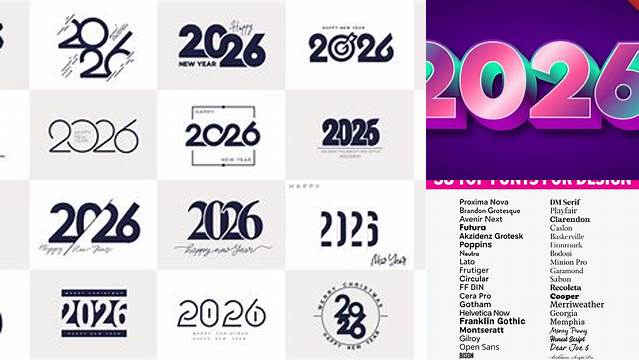
Top Free Fonts To Rock Your Designs In 2026
Alright design enthusiasts, buckle up! We're diving headfirst into the exciting world of typography and looking ahead to the best free fonts of 2026. Choosing the right font is like picking the perfect outfit – it sets the tone, makes a statement, and can completely transform your whole vibe. Whether you're a seasoned graphic designer, a budding blogger, or just someone who loves to tinker with creative projects, understanding the landscape of free fonts is an absolute must. This isn't just about finding fonts; it's about finding the perfect font to express your brand or your creativity. It's about communication, style, and legibility. Forget the boring old days, guys, because 2026 is promising to be a killer year for typography. We're talking fresh styles, innovative designs, and a whole bunch of options that won't cost you a penny. So, let's get this party started and explore what the future holds for free font fanatics like us. This article is packed with insights, recommendations, and tips to help you navigate the font jungle and choose the right typeface for your needs. Get ready to give your projects that extra edge and make your designs pop.
1. The Rise of Variable Fonts: Font Evolution in 2026
Get ready for variable fonts, because they will be everywhere in 2026. Variable fonts are the superheroes of the font world, allowing you to adjust weight, width, and other properties within a single font file. This means you get endless design possibilities without having to manage tons of different font files. Imagine being able to smoothly transition from a thin, elegant typeface to a bold, eye-catching headline font – all with one click! This level of flexibility is changing the game for web design, branding, and even print materials. In 2026, we'll see variable fonts become even more refined, with designers pushing the boundaries of what's possible. Expect to find free variable fonts offering a wide array of customizable options, empowering you to create unique and dynamic designs. The benefits are huge. File sizes shrink, website loading times improve, and designers gain unparalleled control over their typography. So, as you look for the best free fonts 2026, keep an eye out for variable font support. You'll be amazed at what they can do. Variable fonts also offer accessibility advantages by allowing users to customize the font to their preferences. This can greatly improve readability for those with visual impairments. With the ongoing push for web accessibility, variable fonts are becoming an increasingly important consideration for web developers. Moreover, the design community is responding to the demand for web design, offering more variable fonts with each passing year.
2. Exploring Modern Sans-Serif Free Fonts for 2026
Modern sans-serif fonts are the kings and queens of the design world. They're clean, versatile, and incredibly readable – perfect for everything from website copy to branding materials. In 2026, the trend will continue. We'll see more sophisticated and refined sans-serif fonts that are perfect for all kinds of projects. Think about fonts that strike the ideal balance between simplicity and personality. These fonts will be perfect for capturing attention without being too intrusive. These fonts will be the workhorses of your design arsenal. When you look for the best free fonts 2026, focus on options that offer a wide range of weights and styles. This will give you the flexibility to use the font in different contexts, whether you're designing a logo, creating website content, or crafting marketing materials. Consider the font's overall feel: Is it friendly and approachable, or sleek and professional? The right sans-serif can make a huge difference in how your design is perceived. Another important thing to keep in mind is the font's x-height, which affects readability. A larger x-height generally makes a font easier to read, especially in small sizes. Look for sans-serif fonts with excellent legibility, particularly for long-form text. Modern sans-serif fonts also excel in responsive design. Their simple letterforms often render well on various screen sizes, making them perfect for the ever-increasing number of mobile users. When searching, consider which sans-serif font options are available. Does it support multiple languages? Do they offer OpenType features like ligatures and alternative glyphs? The more options you have, the more creatively flexible your work can be.
3. The Revival of Serif Fonts: Classic Styles in the Modern Era
Serif fonts are making a huge comeback, but with a modern twist! These fonts bring a touch of elegance and sophistication to your designs, reminiscent of traditional typography. If you're looking for the best free fonts 2026, don't overlook the serif fonts that are getting a makeover. These fonts add a touch of authority and readability, so expect a renewed interest in classic styles. Today's serif fonts are often reimagined with clean lines and a contemporary aesthetic, making them perfect for both print and digital projects. They're no longer just for stuffy books and formal invitations. Expect designers to create serif fonts with unexpected details and unique character sets to make your design stand out. When you search for free serif fonts, keep an eye out for variations, different weights, and styles. This ensures you'll be able to use the font in a variety of ways. Consider how the font performs in different contexts. Is it ideal for headers, body text, or both? Does it complement the images and other elements in your design? Modern serif fonts can bring an air of sophistication to branding, websites, and editorial designs. They convey authority and trust, which can be invaluable for businesses. Moreover, the use of serif fonts creates a sense of history and timelessness, which can resonate with audiences. The versatility of serif fonts has made them a favorite choice for many designers. They offer a great balance of legibility and style. They are also ideal for creating a sense of luxury and premium appeal. You will often find these fonts used for prestigious brands and publications.
4. Handwritten and Script Fonts: Adding a Personal Touch
Nothing says 'unique' quite like a handwritten or script font. They bring a human, personal touch to your designs. These fonts add warmth and personality to your projects. If you're on the hunt for the best free fonts 2026, get ready to add some personality to your design arsenal. Script fonts are perfect for logos, invitations, and any design where you want to express creativity and individuality. In 2026, we'll see a rise in free handwritten and script fonts that are more realistic and stylish than ever. The most popular script fonts will offer variations. These variations allow you to create unique designs. Consider whether the font is easy to read, especially at smaller sizes. It's crucial that your audience can understand the message. When selecting handwritten fonts, try to assess their personality. Does it feel friendly, playful, or elegant? The font should enhance your brand's voice. Another important factor is character set support. Does the font include all the characters and symbols you need? The font should also have a good selection of ligatures. Ligatures are where two or more letters are combined into a single character. These add a touch of elegance to your designs. Overall, the handwritten and script font options can be used for a variety of creative projects. These fonts are great for adding a personal touch. This will help you convey your brand's creativity and authenticity. Remember to use script fonts sparingly. They work best in small doses. Too much can be overwhelming.
5. Display Fonts: Making a Bold Statement
Display fonts are all about grabbing attention. They are perfect for headlines, posters, and any design that needs to make a statement. If you're searching for the best free fonts 2026, you'll find that display fonts are essential tools. They're bigger, bolder, and designed to be seen! These fonts tend to be more experimental and unique than standard fonts. They bring a sense of creativity and personality to your designs. You can expect to see display fonts with innovative shapes, unusual letterforms, and eye-catching details. Many display fonts are free, which is great if you want to add flair to your designs. You might find display fonts that have playful, whimsical vibes. Others can have a strong, modern feel. When you search, consider the font's versatility. Can it be used for multiple purposes? Does it complement your overall design? Display fonts can be a great way to add flair. They are often used in advertising, branding, and social media. You may find fonts that have different weights, styles, and versions. These variations provide versatility. The right display font can make your design stand out. Keep in mind that display fonts are mainly used for headlines. They're not always suitable for body text. Display fonts work well for creating a visual identity. If you're looking to create something memorable, then use display fonts.
6. Finding Fonts with OpenType Features for Enhanced Design
OpenType features take your typography to the next level. They give you control over ligatures, stylistic sets, and other advanced options. This allows you to fine-tune your designs. If you are looking for the best free fonts 2026, look for fonts that offer OpenType features. These are designed to elevate your typography. With OpenType features, you can make your designs even more sophisticated. Ligatures, for example, combine two or more letters into a single character for a smoother look. Stylistic sets provide alternate versions of letters and numbers, allowing you to customize the font to your liking. When you explore OpenType fonts, look for fonts that offer a range of features. These features help to boost your design. These might include fractions, small caps, and old-style figures. OpenType features give you a lot of creative flexibility. They help you create unique designs. When you search for fonts, consider the specific features that matter to you. Do you need a font with specific ligatures? Does it have the features you need? OpenType fonts are essential for creating beautiful and sophisticated designs. They give you an amazing amount of control. When using OpenType fonts, be sure to experiment with the features. This will give you a deeper understanding of the font's capabilities. These are useful for adding a touch of personality to your designs.
7. Where to Find High-Quality Free Fonts Online in 2026
Finding great free fonts has never been easier, but you still need to know where to look. The key is to find reliable sources. If you're in search of the best free fonts 2026, then knowing where to look is the first step. There are several online platforms that provide a wide selection of fonts. Websites such as Google Fonts, Font Squirrel, and DaFont are great places to start. These are reliable and safe. Google Fonts is a favorite among designers because of its huge library and easy-to-use interface. They also provide good typography with accessibility and web performance. Font Squirrel is a great platform. It provides curated collections of high-quality fonts. They also have a unique license that allows you to use them commercially. DaFont has a huge library with tons of options. Always check the licensing for each font to make sure you can use it as intended. When exploring the fonts, make sure to test the font before downloading. You can preview the font. You can also check out its various characters. There are also premium fonts to consider. Some premium fonts have free versions. They are a good way to get a taste of the style. These fonts can be found on various websites. Be sure to read the licensing terms for all the fonts. Keep an eye out for fonts that include multiple weights and styles. The goal is to pick the right font. This will help you elevate your designs.
8. Understanding Font Licensing: What to Watch Out For
Font licensing can be tricky, but it's super important to understand. It tells you how you can use a font. If you're looking for the best free fonts 2026, you need to understand licensing. This will help you avoid any legal problems. There are different types of font licenses. Some are free for personal use. Others allow commercial use. This means you can use them for your business. Always check the license before you download or use a font. This will help you avoid any problems. Pay close attention to restrictions. There might be limits on how you can use the font. You may not be allowed to embed it in software. You might not be allowed to redistribute the font. The license terms will explain all of this. Be aware of open-source licenses. These are usually very flexible. The font can be used in many different ways. However, there might be some restrictions. These restrictions should be written in the terms. If you are unsure about the license, then do some research. Read through the terms. If you are still unsure, ask a legal expert. Following licensing guidelines ensures that you respect the font designer's work. It can help you avoid any potential legal issues. This also supports the community. Always respect the hard work and creativity that goes into each font.
9. Matching Fonts: Font Pairings for Stunning Designs
Pairing fonts is a great art. It's all about creating a harmonious balance. If you're looking for the best free fonts 2026, learn about the art of font pairing. This will help you elevate your designs. There are certain fonts that work well together. Try to pair fonts that complement each other. Consider the personalities of the fonts. Do they match your brand? Think about readability, contrast, and visual balance. A good font pairing will enhance your message. It's the key to a good design. To begin, select one font for the headings and another for the body text. Try using a bold font for the headings. Pair it with a clean, readable font for the body. This is a great way to provide contrast. When pairing, think about contrast. A high contrast can make a design more visually appealing. A low contrast can create a subtle and elegant look. Keep in mind the visual weight of the fonts. Some fonts are heavier. Others are lighter. Pair a heavier font with a lighter font. This will bring balance. If you're not sure where to start, use font pairing guides. They will help you. You can find them on many websites. These guides will provide you with ideas. Keep these guidelines in mind to create beautiful, balanced designs.
10. Font Trends to Watch in 2026: What's Hot in Typography
Typography trends are always changing. The landscape of the design world is forever evolving. If you're looking for the best free fonts 2026, it's important to know what's trending. This can help you stay ahead of the curve. In 2026, we'll see new trends. One trend is the continued popularity of variable fonts. These fonts provide creative flexibility. This allows for a great amount of design options. Expect to see more expressive and experimental fonts. They will be perfect for making a statement. Another trend is a focus on accessibility. Designers are creating fonts that are easy to read. This will help users of all abilities. Look for fonts with excellent legibility. Some fonts are focused on sustainability. These fonts are designed to reduce ink usage. This aligns with eco-friendly values. In 2026, we'll see fonts that are inspired by technology and futuristic designs. These fonts will be perfect for futuristic and digital projects. Also, expect to see a revival of classic typefaces. These fonts will bring a touch of nostalgia. The trends that will dominate are the ones that blend functionality with aesthetic appeal. Make sure you are staying informed. Experiment with different styles. Adapt to new trends. This will help you create modern designs.
11. Font Legibility: Ensuring Your Designs are Easy to Read
Legibility is the most important thing in typography. You must make sure that your audience can easily read your content. If you are looking for the best free fonts 2026, then you must consider legibility. The design is useless if your audience cannot read your content. The best designs prioritize readability. Choose fonts that are clear and easy to understand. Think about the context of your design. Make sure your design fits the target audience. For body text, choose fonts that have a simple, clean design. Avoid overly elaborate or decorative fonts. Make sure the font has enough space between the letters and words. This makes the text easier to read. The font's x-height should be large. This improves readability, especially in smaller sizes. Make sure you use the correct font size for the design. The size should be proportional to the text. Avoid using too much text in one place. This can make the text hard to digest. Contrast is key. The text should contrast with the background. Avoid using colors that make it difficult to read. Test your designs. Make sure the content is easy to read on different devices. Make sure the design works well on both mobile and desktop. Legibility is important for any project. You can create a design that's visually appealing. Prioritize readability to ensure your message is effective.
12. Font Weight and Styles: Mastering the Art of Emphasis
Font weight and styles are essential tools for emphasis and visual hierarchy. They help you guide the reader's eye. If you're on the hunt for the best free fonts 2026, you must master these skills. Understanding font weight is vital. This includes the thickness of the characters. Font weights range from thin to bold. They help you create emphasis. Use bold weights for headlines and important information. Use lighter weights for the body text. This will create a great contrast. Also, you can use font styles. This includes italic and underline. These styles can change the overall look. Italics create emphasis, while underlines can be used for links. However, use these styles with care. Too much emphasis can distract the reader. There are many different styles. Bold and italic are the most common styles. You can also find small caps and other variations. When you experiment with weights and styles, keep your design in mind. You want to create a clear visual hierarchy. You want to guide the reader's eye. Use different weights and styles to emphasize different elements. Try to establish a visual balance. Also, use the correct contrast. This will make your design more effective. A good combination of weights and styles will create dynamic designs. The combination is key to creating a beautiful and readable design.
13. Font Size and Spacing: Optimizing Readability in 2026
Font size and spacing are crucial for creating readable and visually appealing designs. They affect the overall appearance. If you're in the market for the best free fonts 2026, you must understand font size and spacing. Choosing the right font size is important. The size should be appropriate for the content. Headings should be bigger than the body text. Body text should be a comfortable size for reading. Keep the screen size in mind. The font size must be legible on different devices. Spacing also has a big impact on readability. Spacing includes letter spacing, word spacing, and line height. Letter spacing is about the space between individual letters. Adjust it to ensure that the words are easy to read. Word spacing is about the space between words. Too much space makes the text seem disjointed. Too little space can make it hard to read. Line height is the space between lines of text. Enough space will improve readability. Always consider the design. The spacing should be appropriate for the font. Try different options and choose what looks best. It's important to test your design. Make sure the font size and spacing are correct on different devices. Always prioritize readability. These are key to creating good design. Your content should be accessible and enjoyable to your audience.
14. Font Design for Web and Print: Adapting to Different Mediums
Fonts behave differently depending on whether you're designing for web or print. It's important to optimize your designs. If you're looking for the best free fonts 2026, remember that different mediums require different approaches. In print, you have more control over the physical appearance. In web design, the experience can vary. When selecting fonts for print, consider the paper and printing method. Serif fonts are typically a good choice for print. They can be more readable. Also, consider the resolution and size of the print material. For websites, you must ensure that your font looks good on all devices. Choose fonts that are web-friendly and optimized for various screens. Web fonts need to load quickly. This impacts the user experience. Ensure the font supports all the necessary characters. Also, consider the accessibility standards. Different fonts and font sizes can be used. Prioritize readability on both mediums. For print, the font should be clear and crisp. In web design, the font should be readable and functional. Always test your designs. The key is to adapt your font design. This will help you create effective communication.
15. The Psychology of Fonts: How Fonts Influence Perception
Fonts have a major impact on how people perceive your design. They can influence emotions. If you are looking for the best free fonts 2026, you will want to learn about font psychology. This knowledge will help you make better choices. Fonts evoke emotions. Serif fonts, such as Times New Roman, convey a sense of tradition and authority. Sans-serif fonts, such as Arial, feel modern and approachable. Script fonts, such as Brush Script, can feel creative and personal. Different fonts can convey different moods. The font choice should match your brand's personality. A playful font might be ideal for a children's brand. A sophisticated font might be suitable for a luxury brand. Consider your target audience. Choose fonts that resonate with them. Consider the tone of your design. You can create a feeling of urgency. You can create a feeling of calm. Font psychology can improve your design. It's a critical part of communication. By using the font strategically, you can influence the perception. When you design your fonts, consider this information. This will help you engage your audience.
16. Best Free Font Combinations for Websites in 2026
Finding the right fonts is a must-do. When combined, you can create a visually appealing website. If you are looking for the best free fonts 2026, it is time to learn the best font combinations. You can use a range of fonts. Combining fonts, you can create a website that is both readable and attractive. Pair a strong font with a readable font. Consider the contrast. Make sure the fonts complement each other. Popular combinations include pairings of different fonts. Use a serif for headings and a sans-serif for the body. You can also use different fonts. The fonts must complement each other. Test the combinations. Make sure it works well. Remember to consider your brand. Try a font that fits your brand's personality. Always prioritize readability. You must ensure that the content is readable on all devices. You can use a variety of resources. You can also find font pairing tools to help you. You can experiment and test. Remember, good font combinations will enhance the overall design. You must use the right fonts. This ensures that the website is functional and appealing.
17. Utilizing Font Variations: Exploring Different Styles and Weights
Fonts don't just come in one style. There are many font styles and weights. You can also find multiple variations. If you're looking for the best free fonts 2026, learn about font variations. Font variations provide many options. These can improve your designs. Font weights refer to the thickness of the font. You can find the right weight. Weights range from thin to bold. Styles include variations like italics, bold, and condensed. Explore different styles. This allows you to create emphasis. These fonts are available in different styles. Use variations to create a visual hierarchy. You can highlight different parts of the content. Test your designs on different platforms. You want to make sure the fonts are readable. The use of font variations is a powerful tool. When used strategically, you can create a visually engaging design. This helps you communicate your message. Experiment with different styles and weights. These can add depth and personality to your designs.
18. Font Selection for Branding: Creating a Unique Visual Identity
Choosing the right fonts is very important for branding. Fonts are a critical part of the brand identity. If you're looking for the best free fonts 2026, you should learn about font selection for branding. Fonts must reflect your brand's values. They can also communicate your message. Start by identifying your brand's personality. Is your brand playful, serious, or creative? Choose fonts that align with your brand's personality. Your font should be consistent. When you create a brand identity, your font should be used across all materials. The selection should be versatile. Choose fonts that are legible. Make sure they work well in different contexts. Check the licensing. Make sure you can use the fonts for commercial purposes. Research the font. See what type of message it sends. A good font selection will communicate your brand. It also reinforces brand recognition. It helps to build trust with your audience. You can create an unforgettable brand identity. These fonts can create a strong visual identity.
19. Free Fonts for Graphic Design: Elevating Your Creative Projects
Graphic design projects require great fonts. These fonts can take your projects to the next level. If you're looking for the best free fonts 2026, you will want to look at free fonts. You can use these fonts to elevate your creative projects. Find fonts that are versatile. They will give you multiple uses. Different styles and weights can provide creative options. Experiment with different combinations. This allows you to see what fits your project. Make sure your fonts align with the project. Consider the message you want to send. Check the licensing terms. You want to make sure that you can use the font. Free fonts can enhance your designs. These fonts can be found on a variety of websites. They can add personality and professionalism. You must ensure that the fonts are high-quality. You can also add visual interest. When you select your font, think about the visual impact. It's important to select a font that makes your design appealing.
20. The Importance of Kerning and Tracking in Typography
Kerning and tracking are important in typography. These are details that affect the readability. If you're searching for the best free fonts 2026, you must know about kerning and tracking. Kerning is the space between individual characters. Adjusting the kerning improves the appearance. Tracking is the spacing between a group of letters. Adjusting the tracking impacts the overall look. Kerning is important for readability. Make sure there is enough space. Also, adjust for optimal visual appeal. Tracking impacts the density of the text. You can use tracking for a variety of styles. Kerning and tracking are tools to enhance design. Using these skills will help you create beautiful typography. The focus must be on readability and visual appeal. Mastering these tools will elevate your designs. You must pay attention to the details. When you control kerning and tracking, it can have a great impact.
21. Creative Uses of Free Fonts in Web Design Projects
Free fonts can be used in a variety of web design projects. They can be used to express your creativity. If you are searching for the best free fonts 2026, you can use your fonts. You can use fonts to create a unique and engaging website. Different fonts can provide an array of creative possibilities. Headings and body text are the foundation. You can use fonts to create visual interest. You can also use them to create a brand identity. Consider the personality of the font. Consider the audience and the brand. Use fonts to create a mood. The font can be playful or serious. You can also use fonts for call to actions. Free fonts can add personality and professionalism. Experiment with different fonts. This will give you an idea of how they look. Make sure that the fonts are readable. You must ensure the font is readable across different platforms. Creative use of fonts elevates your designs. When used strategically, you can create web designs.
22. Incorporating Free Fonts in Social Media Graphics: Tips and Tricks
Free fonts are great for social media. They can help you to create compelling content. If you are looking for the best free fonts 2026, you must also learn about social media. You can use fonts to engage your audience. Choosing the right font helps your message. Different platforms have different requirements. Choose fonts that are visible on social media. Think about the message you want to communicate. Choose a font that reflects your brand's voice. Use font pairings to create a balance. You can use different fonts for headings. You can also use a different font for the body text. Keep the design simple. You don't want to overwhelm your audience. Test your design on different devices. Test the design to ensure it's readable. The fonts can help you stand out. Choose a font that is unique. You can add personality and visual interest. By using the right font, you can enhance your social media. You can also make an impact.
23. Font Management Tools: Streamlining Your Font Library
Font management is important to organize your font library. It helps to keep your design workflow efficient. If you are searching for the best free fonts 2026, font management is a must. You can make your font library more efficient. Font management tools help you to install, organize, and activate fonts. These can also help you with font conflicts. These tools will help you activate or deactivate fonts. The tools offer features. The features include organizing fonts into collections. Some tools also allow you to preview fonts. When choosing your font management tool, consider the features. Consider the operating system. Also, consider the ease of use. Using font management tools saves time and streamlines your workflow. You can keep your design process organized. You must find a good tool. When you find the right tools, you can optimize your design experience. This helps to manage your font library.
24. Free Fonts for E-commerce: Designing for Online Sales
Using the right fonts can elevate your E-commerce website. These fonts must be readable and enhance your brand. If you're in search of the best free fonts 2026, then learn about fonts for E-commerce. Select fonts for your brand. They can make a difference to your brand. Think about your target audience. You want to choose fonts that appeal to them. Select fonts that are easy to read. This makes it easier for customers to read your products. Pay close attention to font pairings. Combine fonts. This will create a visual appeal. Try different fonts for headlines. Choose a different font for the body text. Test your fonts. Make sure they look good on different devices. You must ensure a seamless experience across all platforms. This ensures that the website works well. The font can help to improve conversions. When you use the right fonts, it can increase your sales. Font selection can help you create a successful E-commerce site.
25. Choosing Fonts for Accessibility: Designing for All Users
Font selection has to focus on accessibility. You want to design content that is inclusive. If you are searching for the best free fonts 2026, then you should design for all users. Font selection impacts the reading. You must ensure everyone can read the content. The font must be legible. You want to choose a font with a high x-height. The characters must be easily distinguishable. Ensure you use enough contrast. You must test your design to ensure its visibility. Choose fonts that support different languages. Support those with visual impairments. When you prioritize accessibility, it makes your content more inclusive. Your content will be accessible to more people. By incorporating these design choices, your content will reach a wider audience. This will improve your design overall. When you make accessibility a priority, you improve your reach.
26. The Future of Typography: Font Trends Beyond 2026
The world of typography is always evolving. You need to stay ahead of the curve. If you're looking for the best free fonts 2026, you can look beyond. You can also see the future of design. Future trends will change. Designers will be looking for fonts that are both innovative and functional. Variable fonts will continue to be popular. Designers will experiment with new styles. Expect a focus on inclusivity. Designers will also ensure the design works. Sustainability will continue to grow. Eco-friendly designs will become more popular. The integration of technology will continue to increase. Fonts will be adapted. They will be used with augmented reality. The future of typography has a strong impact. By understanding these trends, you can prepare. Be open to new trends. This will help you create designs for the future.
27. Legal Considerations: Avoiding Copyright Issues with Free Fonts
It is important to understand the legal aspects of font use. There are copyright issues and you must avoid them. If you are looking for the best free fonts 2026, it is important to understand the legal aspect. You must respect the creators' rights. Always check the license of any free font. Different licenses have different terms. Some fonts are allowed for personal use only. Others have a commercial license. Read the terms. Ensure you are complying with the terms. When using a font, credit the font designer. Always respect copyright and licenses. It is important to avoid copyright issues. You can create legal designs. Be aware of the potential consequences. If you respect the rules, you can use the font legally. It will also protect you. It is important to use the fonts in the right way.
28. Customizing Free Fonts: Modifying and Personalizing Your Choices
Customizing fonts can take your designs to the next level. You can modify fonts. If you are looking for the best free fonts 2026, you can look at customization. You can modify fonts. You can personalize your choices. There are many ways to customize. Some designers will use a font editor. You can adjust the kerning. You can also adjust the tracking. Some tools allow you to change the letter shapes. You can add the unique elements. Make sure you have the rights to change the font. If you're making your own adjustments, make sure the font is still readable. You must respect copyright. You can create something special. Customizing your font can make your designs unique. When you take the time to customize, you will create something special. It shows creativity and attention to detail. Personalizing your font is an added benefit.
29. Mobile Typography: Optimizing Fonts for Small Screens
Mobile typography is all about optimizing fonts for mobile screens. These screens can be small and challenging. If you're looking for the best free fonts 2026, you can start thinking about mobile design. You need to make the content easy to read. The design is very important for mobile. Choose fonts that are legible on smaller screens. Consider using different font sizes. Adjust the line spacing. Test the design. Test the design across different devices. When you consider mobile design, it improves your designs. When you prioritize the user experience, it can impact your work. Ensure the font works on smaller screens. Keep your text concise. You can also use a variety of fonts. Be creative, but remember the user experience. Mobile typography is very important. You can create a design that works well on mobile.
30. The Impact of Typography on User Experience and Engagement
Typography is an important element in any design. It can have a huge impact on the user experience and engagement. If you are searching for the best free fonts 2026, you should study this. Typography impacts user experience. The design makes an impression. The font impacts the first impression. Make sure your design has a great impact. Choose a font that fits your message. The fonts can also engage. Use the font to encourage them. Use bold fonts to create emphasis. Make sure the content is readable. The font affects the overall design. The font choice helps to set the tone. When you understand typography, it elevates your designs. Your designs will be more effective. Typography can help create designs that are engaging. When you use it well, you can have a positive impact.